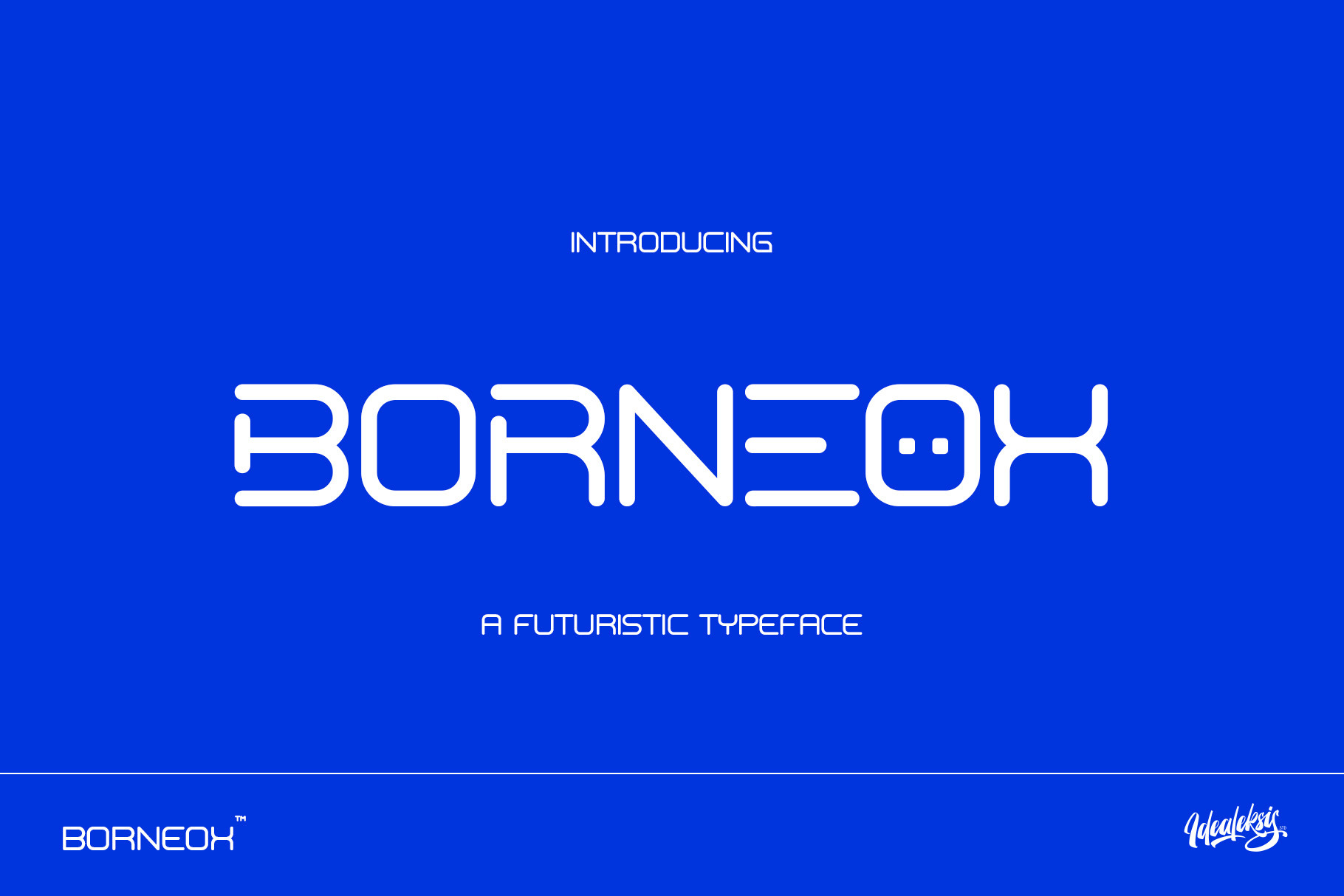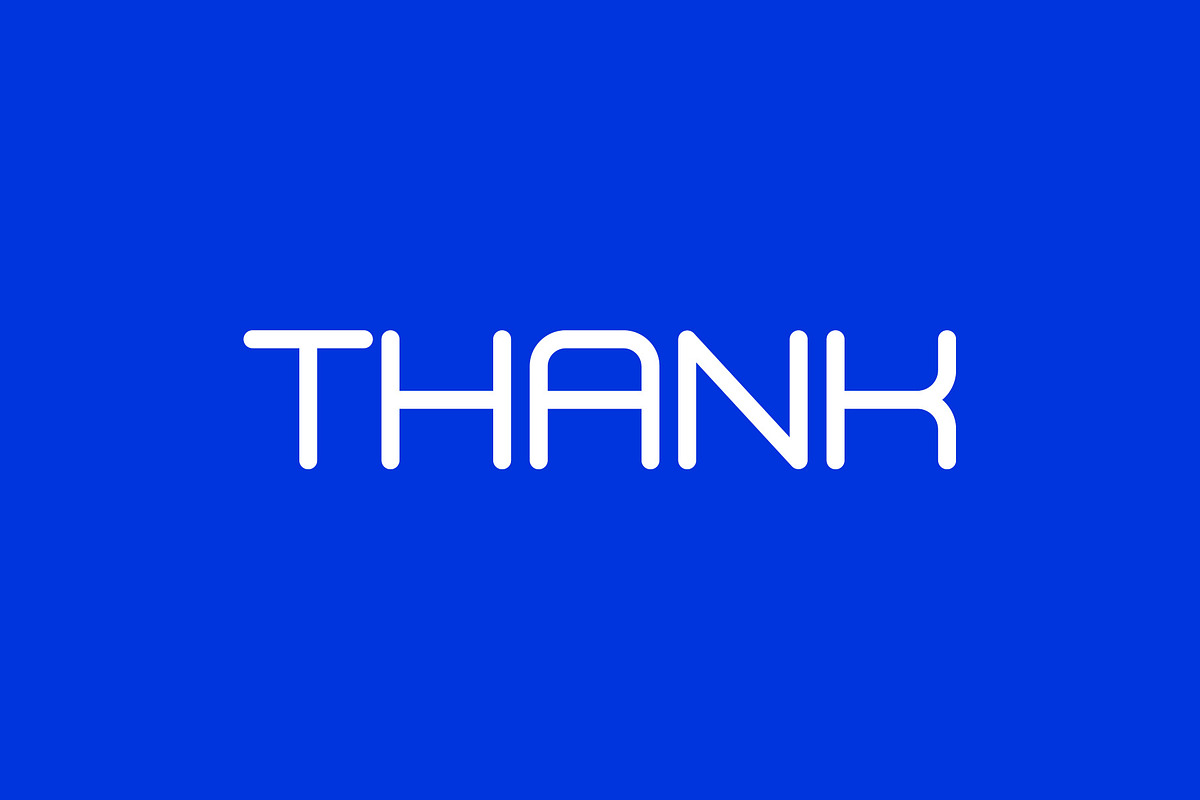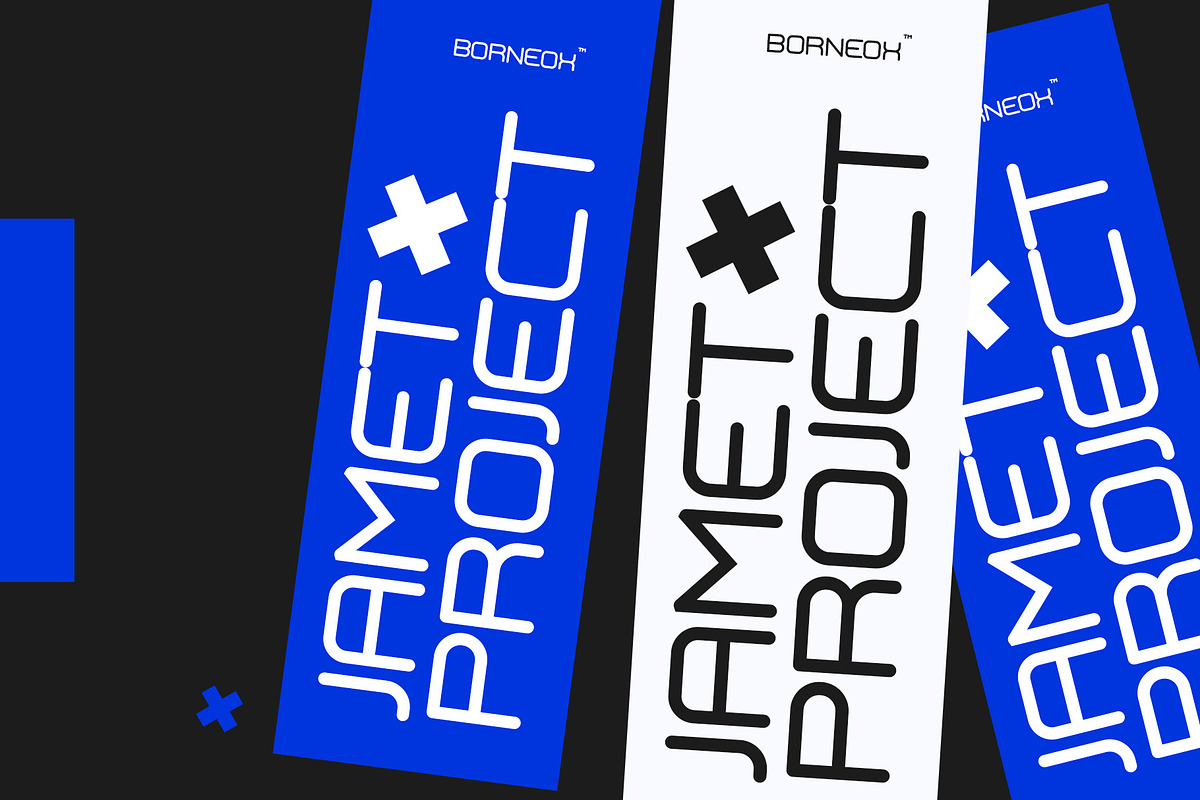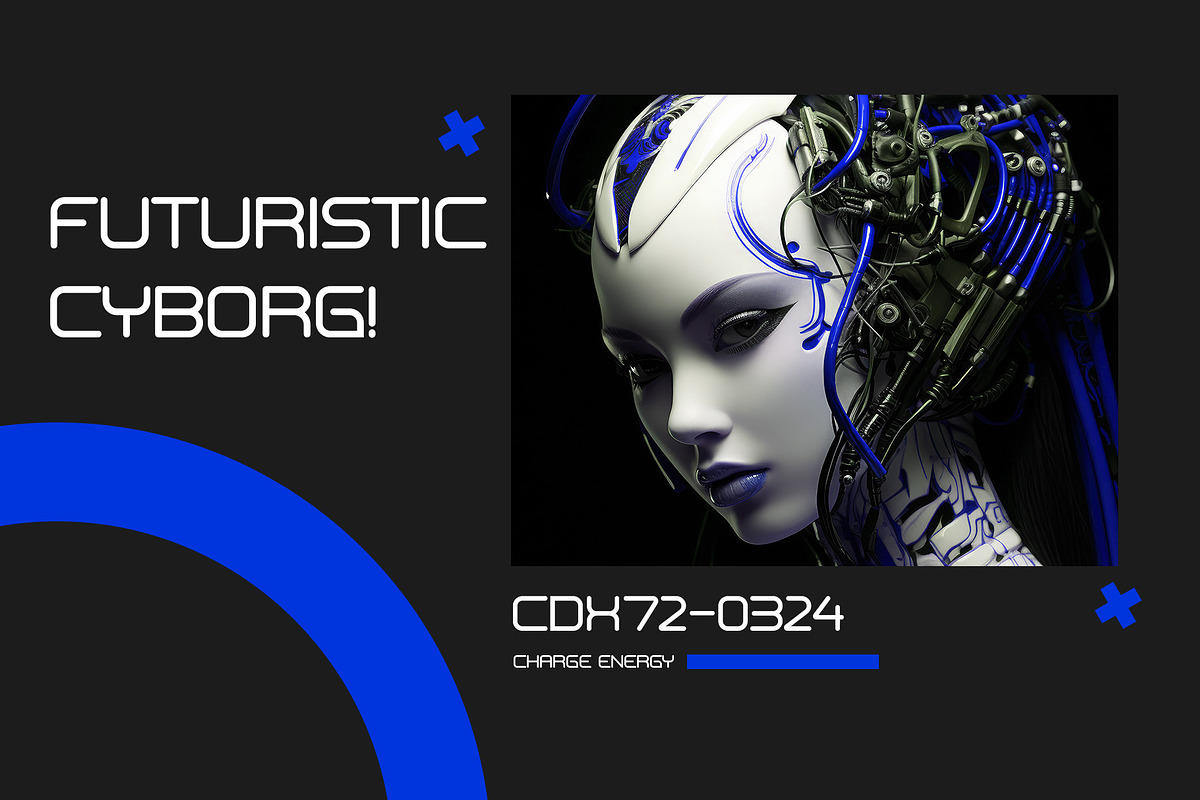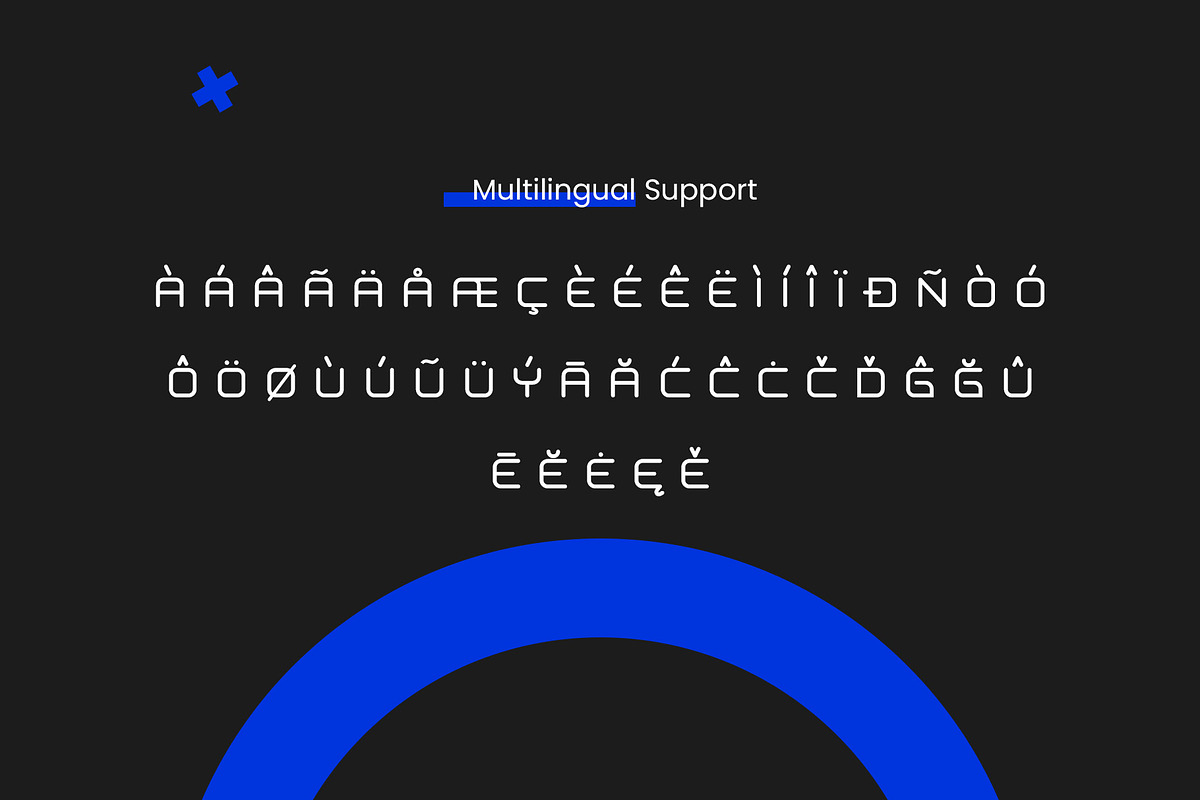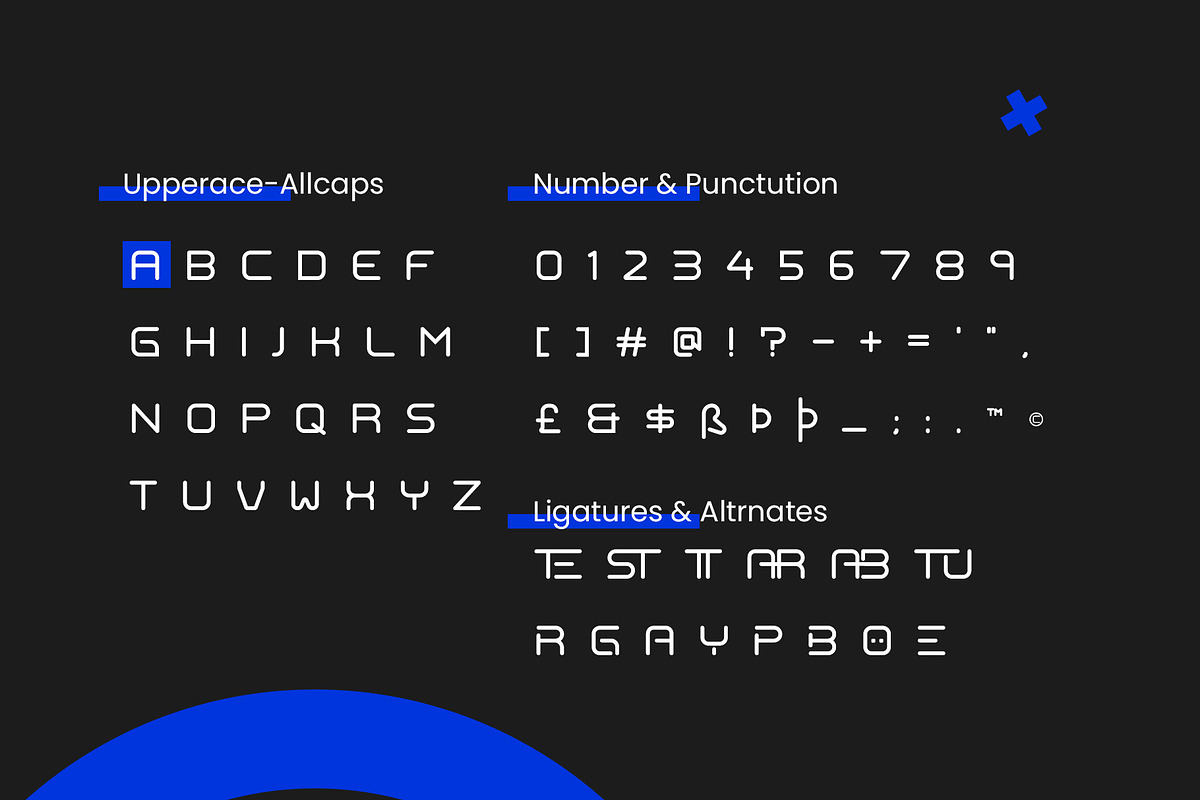
BORNEOX - FUTURISTIC FONT
BORNEOX - FUTURISTIC FONT" is a typeface that combines monoline elements with a distinct futuristic design. With its unique and innovative characteristics, this font brings a strong sense of the future to any design project.
Features : Alternate Characters. Support Multilingual Characters.